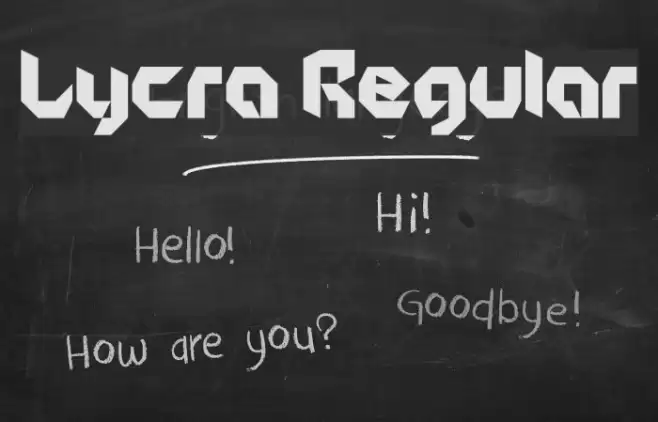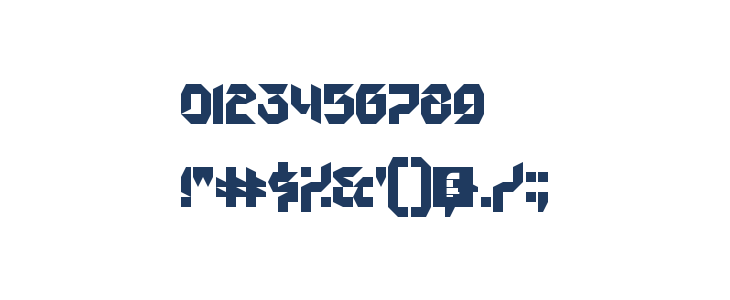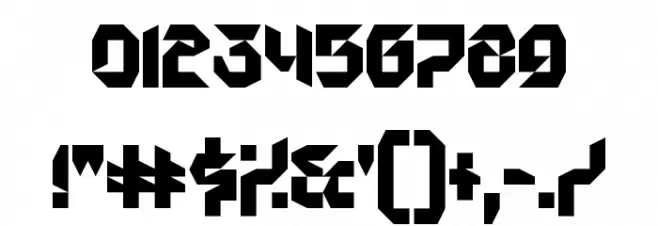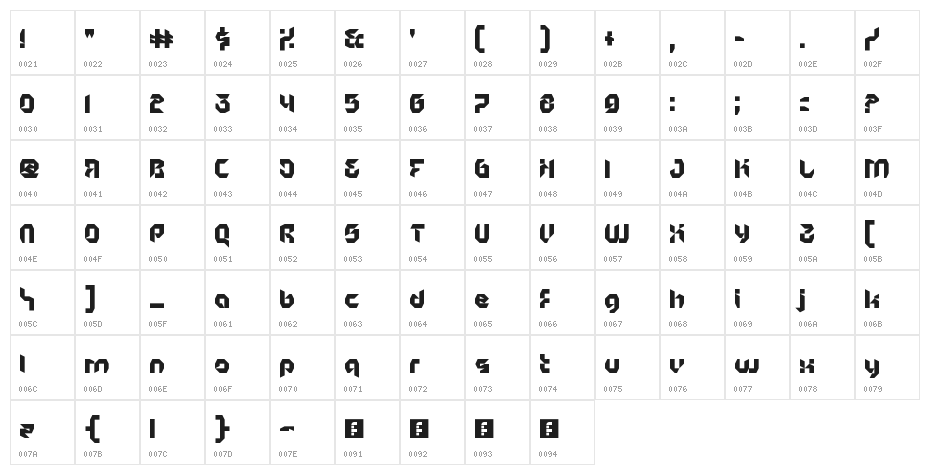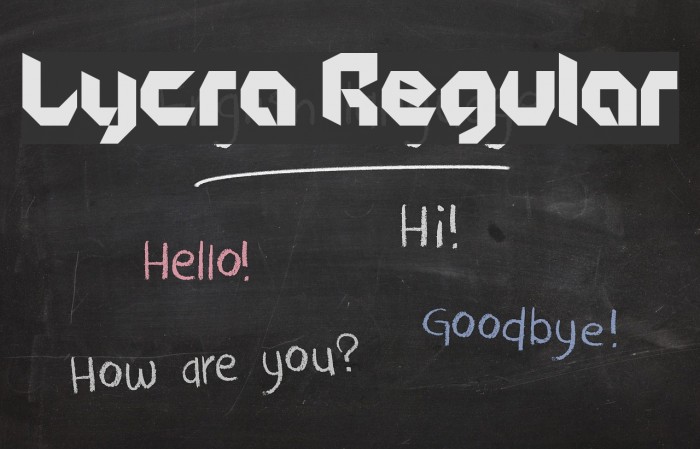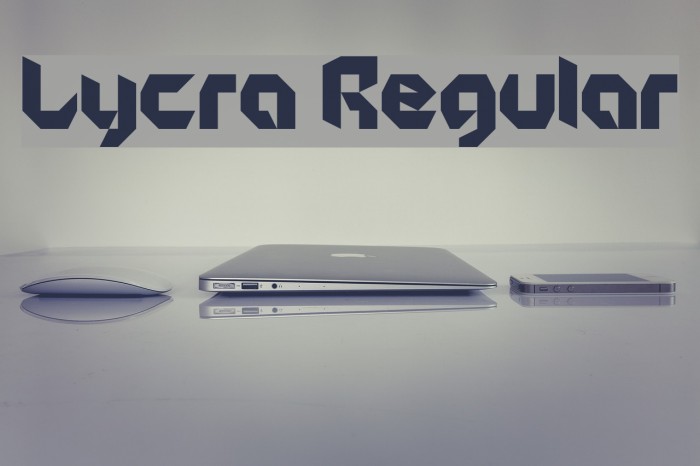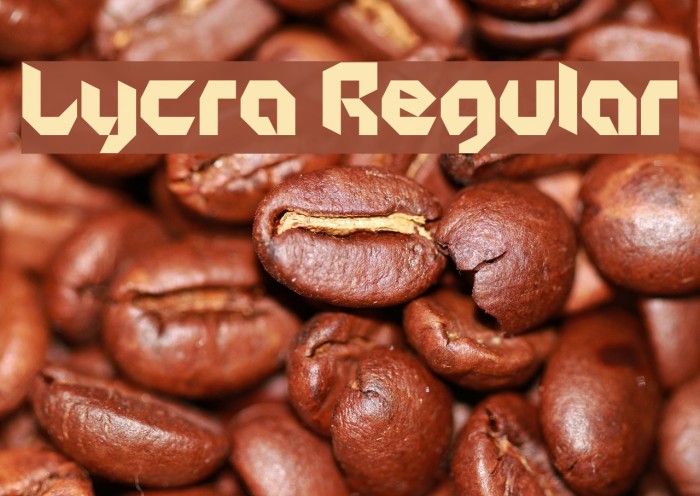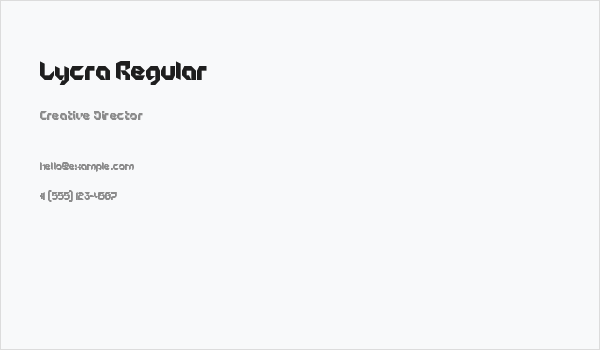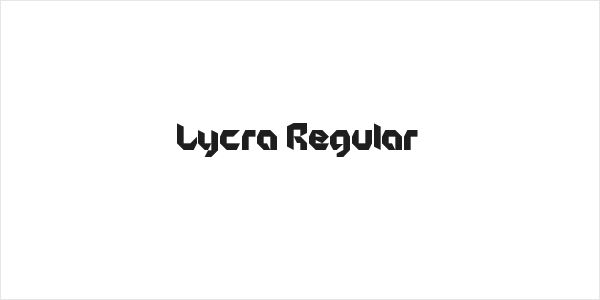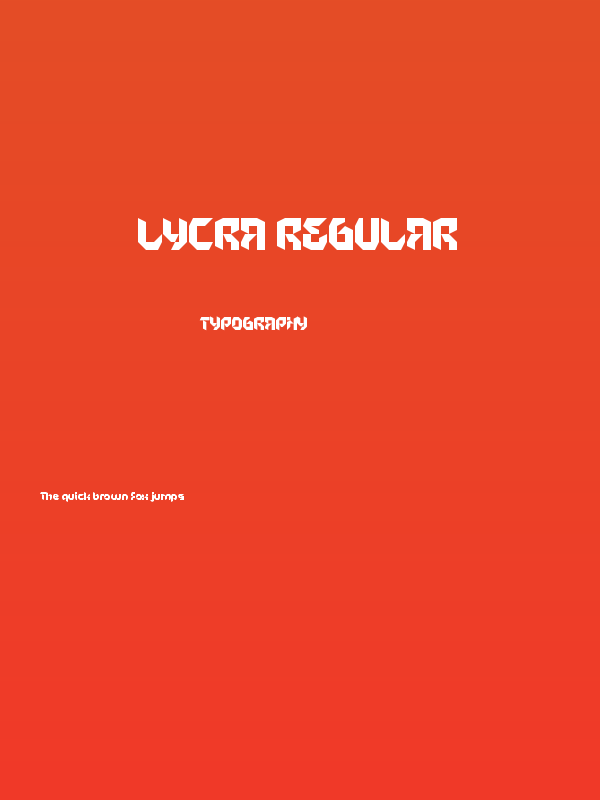
Lycra Regular Font
Lycra Regular Description
This font features a bold, geometric design with sharp angles and a futuristic aesthetic. The characters are constructed with thick strokes, giving them a strong presence. The angular cuts and unique shapes create a dynamic and edgy look, making it stand out in any design. The uppercase and lowercase letters maintain a consistent style, while the numerals and special characters complement the overall design. This font is ideal for projects that require a modern and bold statement.
A bold, geometric font with sharp angles and a futuristic style from Uncategorized fonts.
- Proposed Projects: Ideal for branding, posters, video game graphics, and sci-fi themed designs.
- Overall Style: Futuristic, Edgy